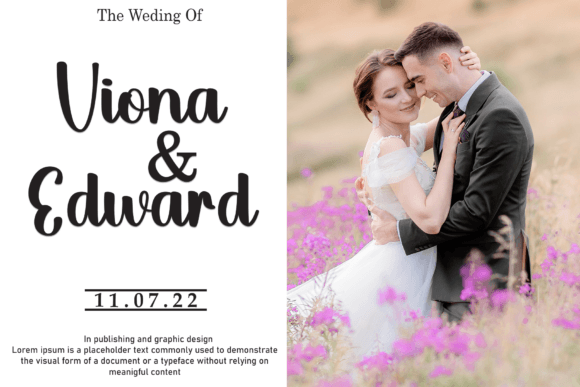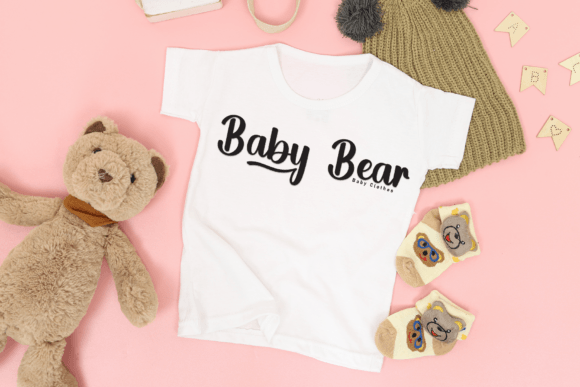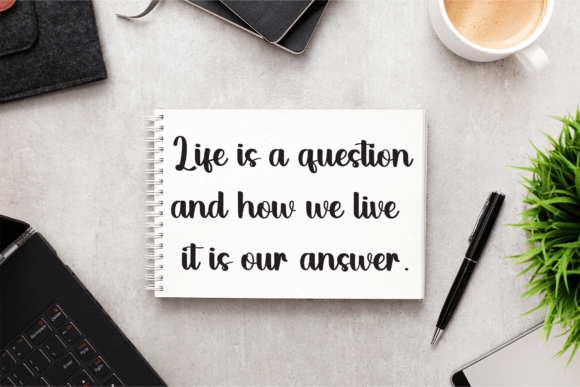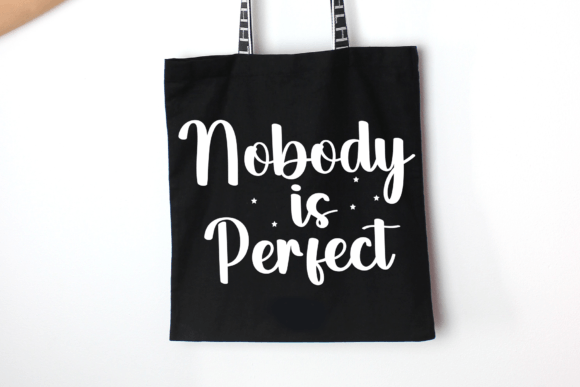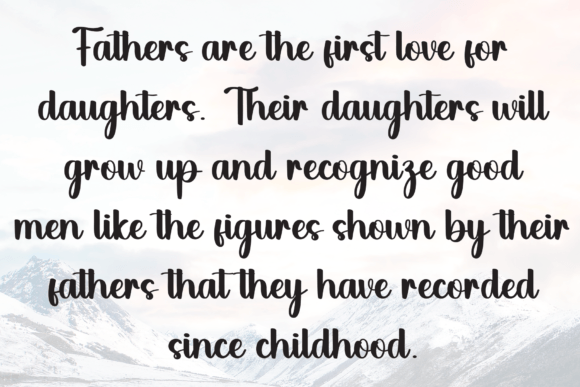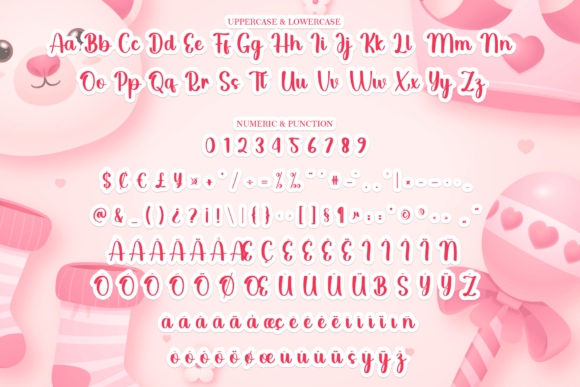
Discover the Magic of Baby Gladys Font
You know that moment when a spark of creativity strikes, and you can’t wait to bring your idea to life? Maybe it’s a beautiful quote for your Instagram post, a custom wedding invitation, or a handmade card for a loved one. Whatever it is, you want it to be perfect – and that’s where the right font comes in.
Enter Baby Gladys Font, a charming script font that adds a touch of elegance to any design. With its gentle curves and playful charm, this magical font is perfect for designers looking to create unique and eye-catching projects. Whether you’re a seasoned pro or a DIY enthusiast, Baby Gladys Font is a valuable addition to your creative toolkit, helping you turn your ideas into stunning works of art.
Baby Gladys Font Key Features
- Unique Characteristics: Distinctive, hand-drawn style with intricate details and subtle nuances, evoking a sense of whimsy and charm
- Font Style: Script, handwritten, elegant, and sophisticated
Designer Review: Baby Gladys Font
Overall, I think Baby Gladys Font is a delightful addition to any typographic project. ✨ The font’s playful and whimsical feel is perfect for creating a sense of innocence and wonder. It’s a great choice for projects that need a touch of nostalgia or vintage charm.
Some of the things I love about Baby Gladys Font include:
- ✨ Its unique, handwritten feel that adds a personal touch to text
- ✨ The variety of weights and styles available, making it easy to customize to suit different design needs
- ✨ The font’s versatility, which makes it suitable for a wide range of projects, from children’s books to advertising campaigns
However, I do have some concerns about the font’s limitations:
- ⚠️ The font may be too cursive for some projects, which could make it difficult to read in certain contexts
- ⚠️ The font’s design may not be suitable for projects that require a more modern or sleek aesthetic
Overall, I think Baby Gladys Font is a great choice for designers who want to add a touch of whimsy and personality to their projects. With its unique feel and versatility, it’s definitely worth considering for your next design project.
Tips for Getting the Most Out of Baby Gladys Font
Here are some tips for getting the most out of Baby Gladys Font:
- Use the font in conjunction with other playful fonts to create a unique and eye-catching design.
- Experiment with different font sizes and colors to add visual interest to your design.
- Use the font to create custom graphics, logos, or other designs that reflect your personal style.
Alternatives to “Baby Gladys Font”
Great Vibes is a modern, elegant script font that works well for titles and headings. It’s ideal for designs that require a touch of sophistication and playfulness. Compared to Baby Gladys, Great Vibes has a more refined and polished look, making it suitable for high-end branding and advertising materials.
Luckiest Charm Font
Luckiest Charm is a whimsical, handwritten font that’s perfect for creating a playful and nostalgic atmosphere. It’s great for designs that require a sense of warmth and personality. Compared to Baby Gladys, Luckiest Charm has a more casual and laid-back feel, making it suitable for social media graphics, posters, and flyers.
Carolyna Pro is a beautiful, elegant script font that’s ideal for designs that require a touch of luxury and sophistication. It’s great for titles, headings, and body text in high-end branding and advertising materials. Compared to Baby Gladys, Carolyna Pro has a more refined and sophisticated look, making it suitable for premium products and services.
Parisienne Font
Parisienne is a beautiful, elegant script font that’s inspired by the classic French style. It’s ideal for designs that require a touch of sophistication and elegance. Compared to Baby Gladys, Parisienne has a more refined and polished look, making it suitable for high-end branding, advertising materials, and luxury products.